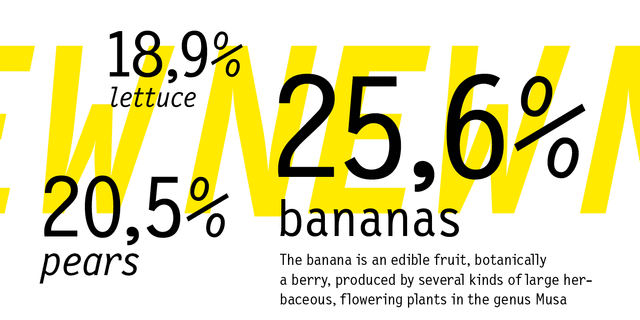
New Letter Gothic (4)
New Letter Gothic was designed for ParaType in 2000 by Gayaneh Bagdasaryan, basing on monospaced Letter Gothic font by Roger Robertson, 1956-62. Due to clear and easy-to-read lettershapes of Letter Gothic, the font is rather popular now for display and advertising matters. The idea was to create a font similar to Letter Gothic in lettershapes but with proportional widths of letters. Applicable for both display and text setting. New Letter Gothic has been awarded for Excellence in Type Design at «Kyrillitsa’99» International Type Design competition in Moscow, 1999.